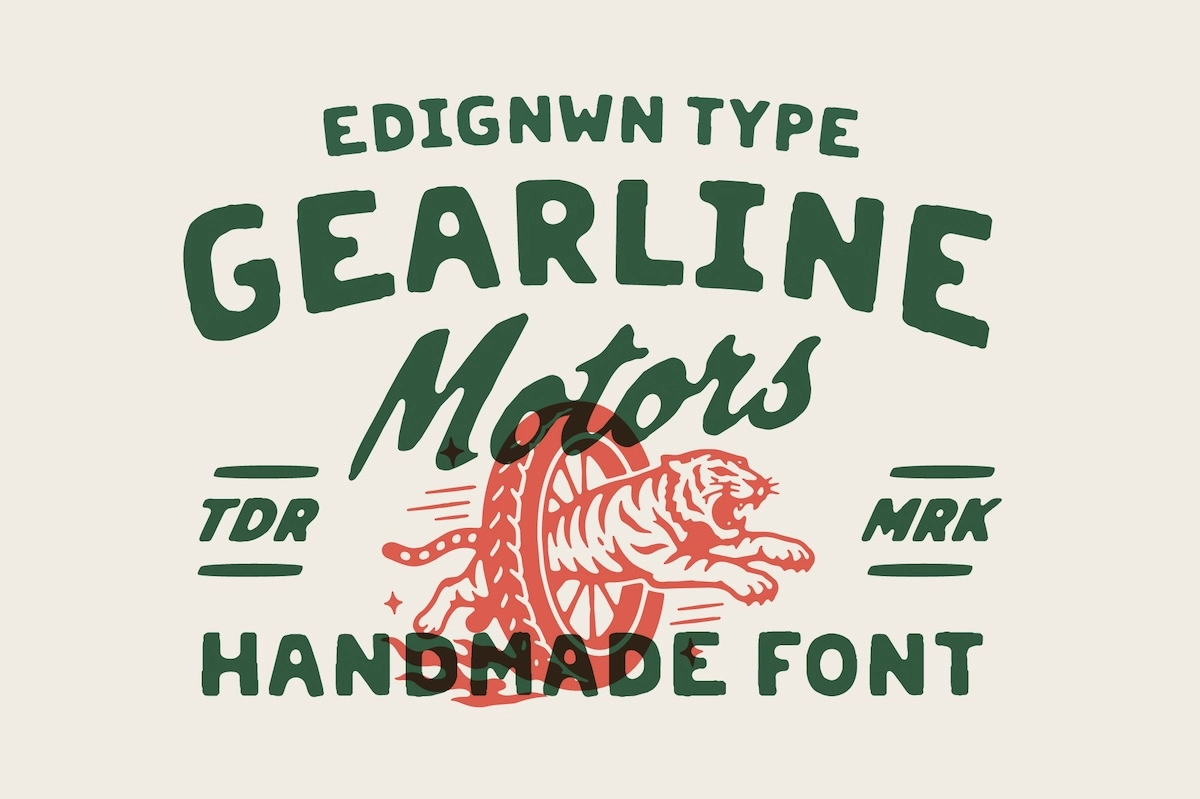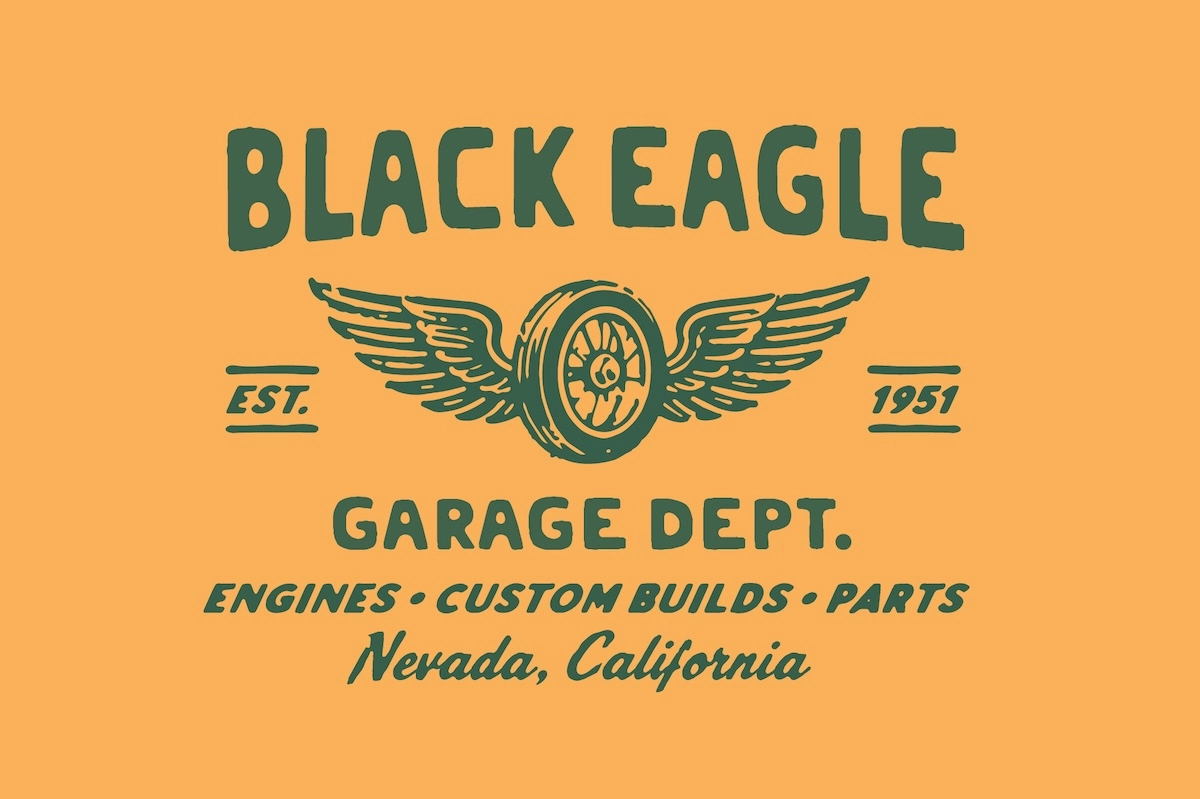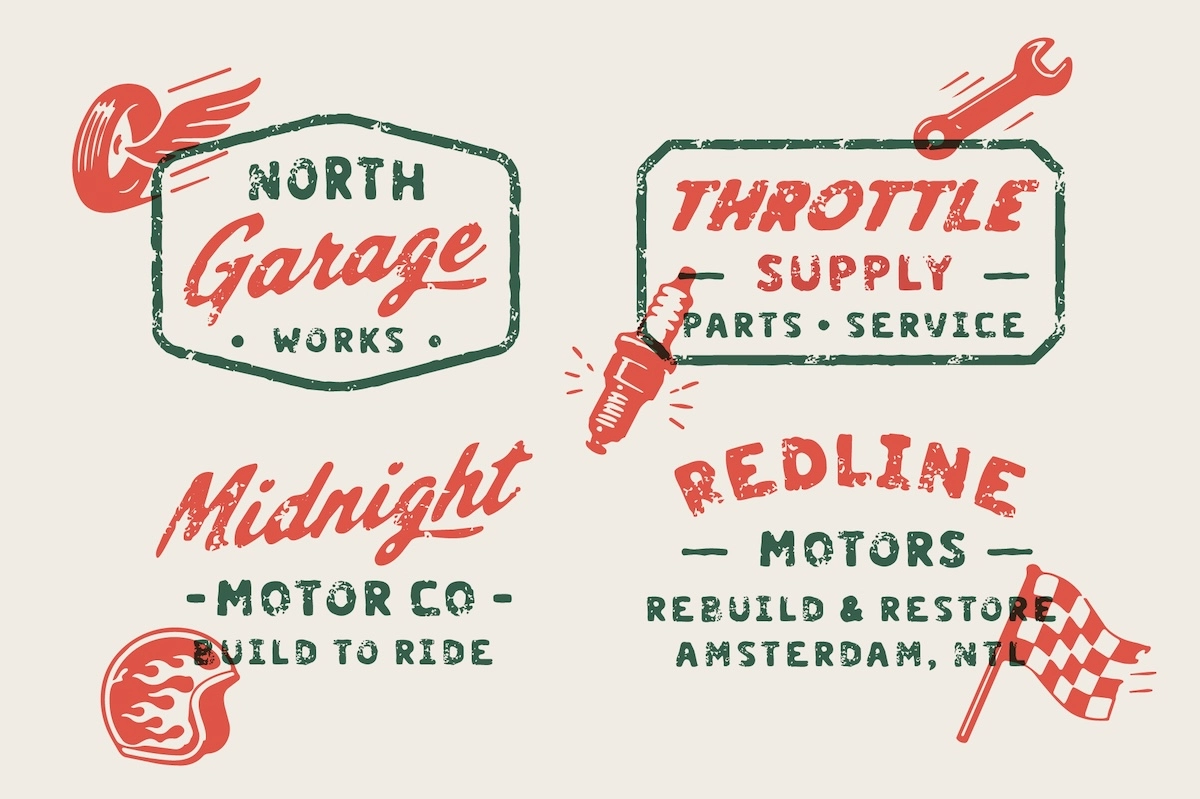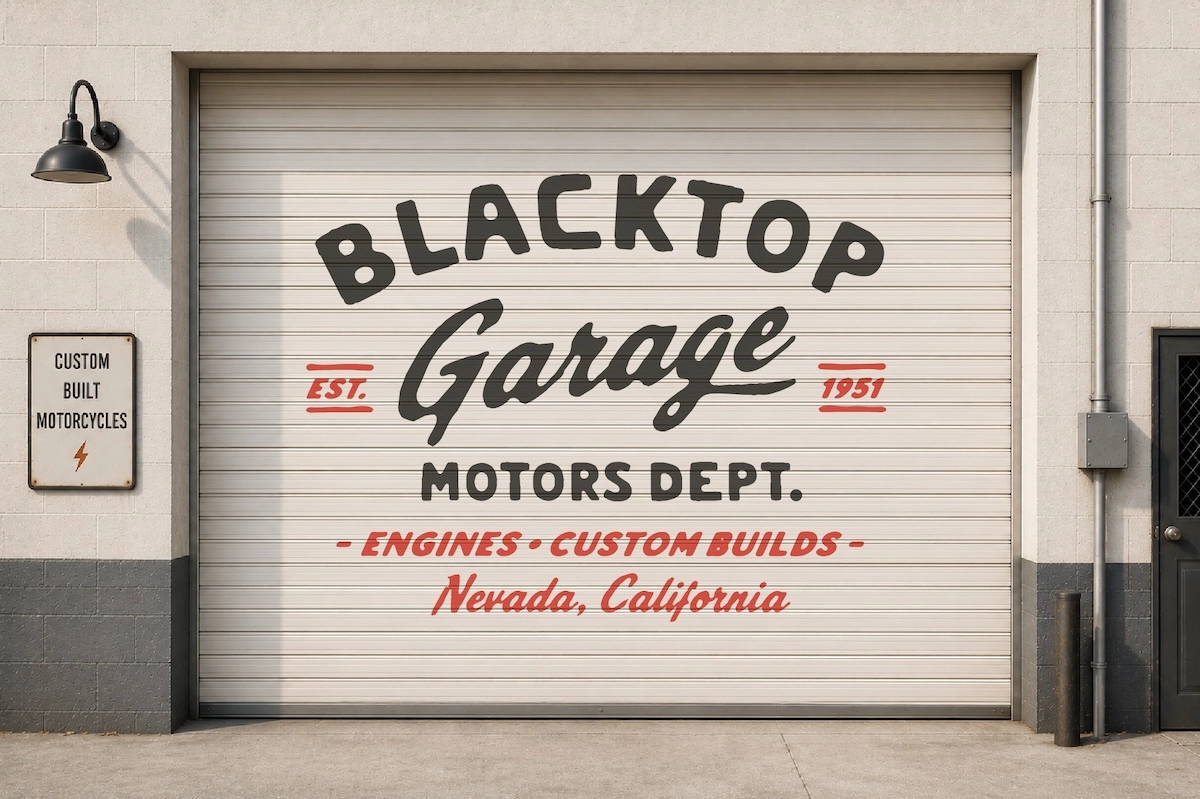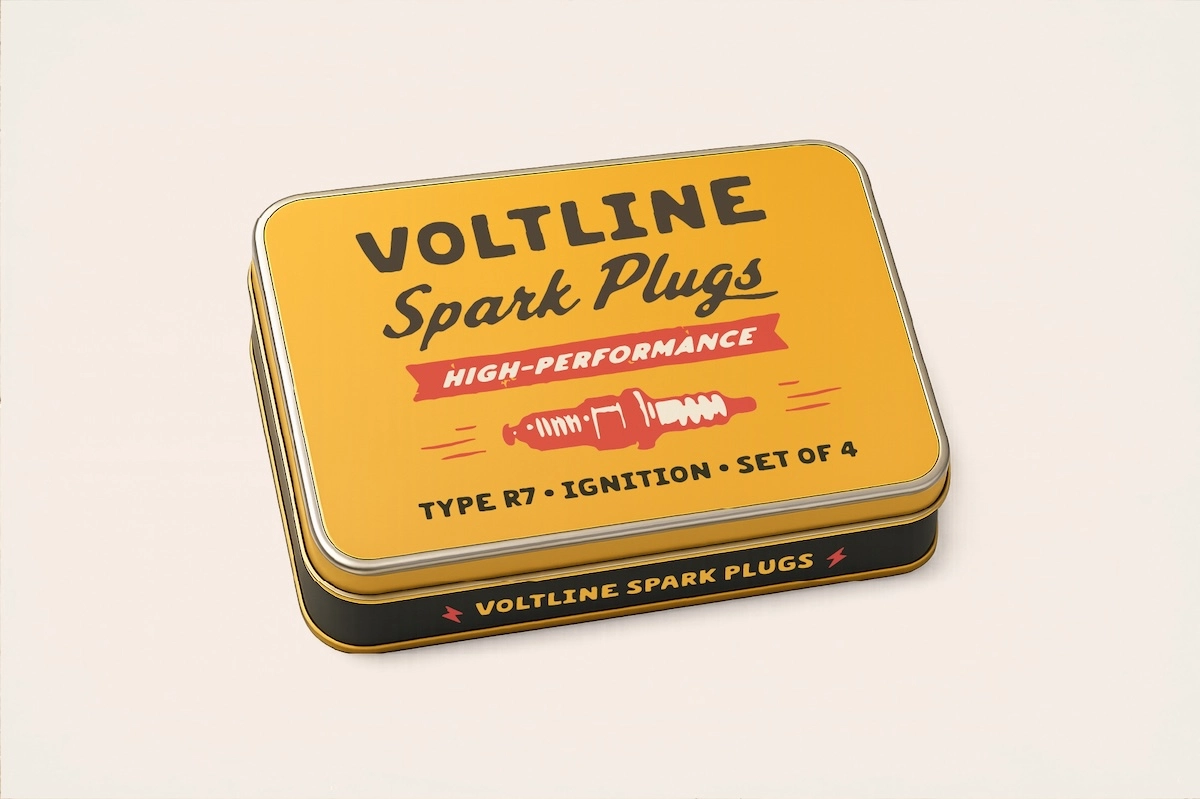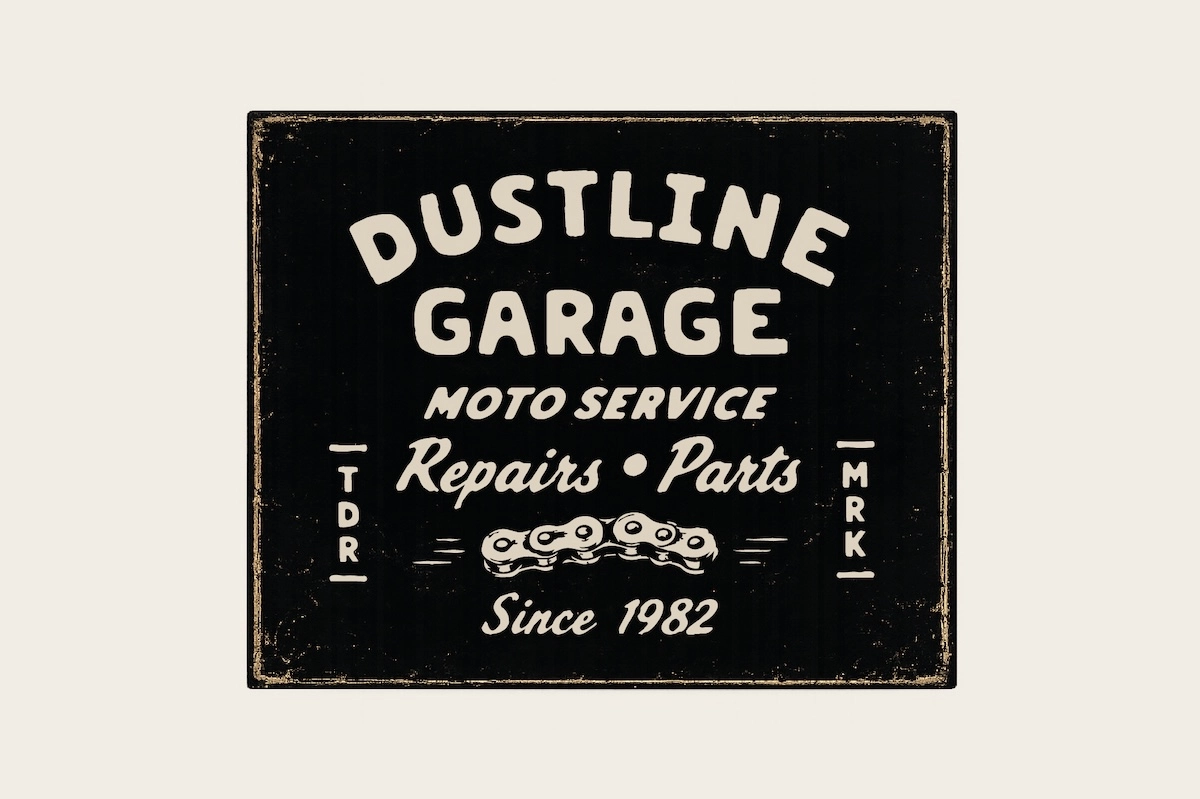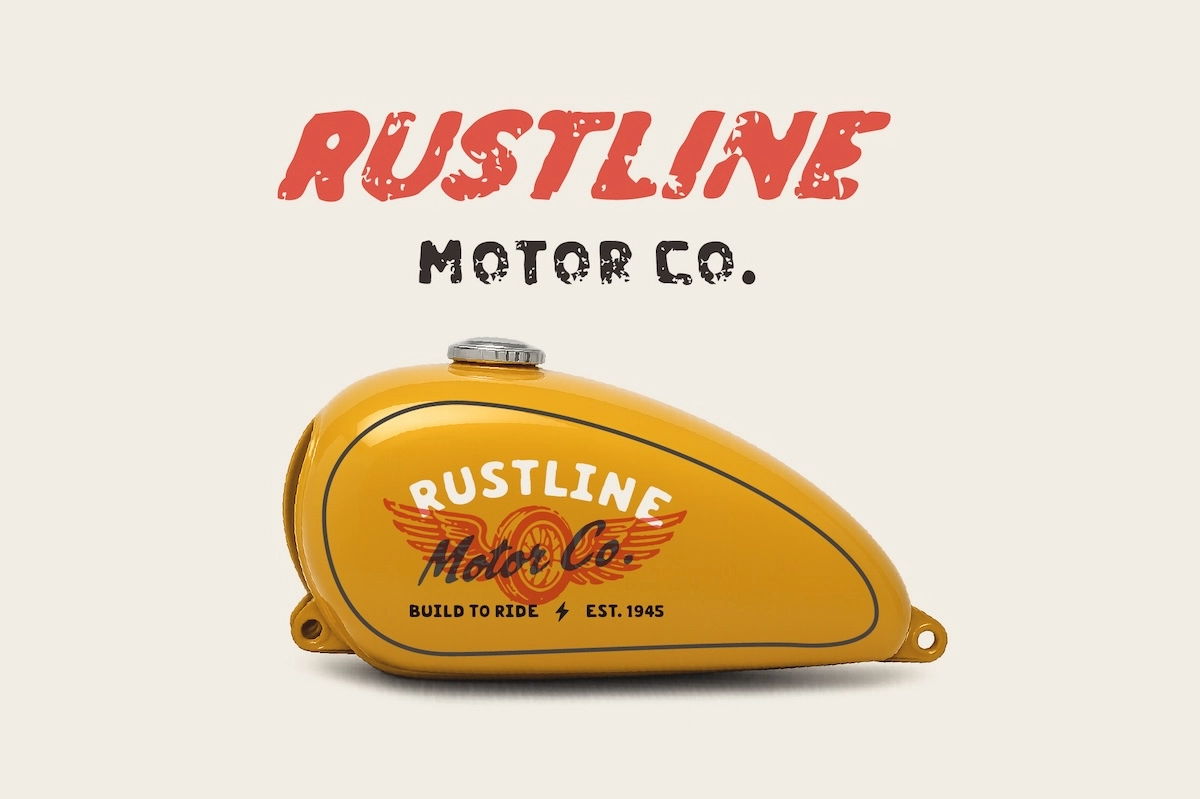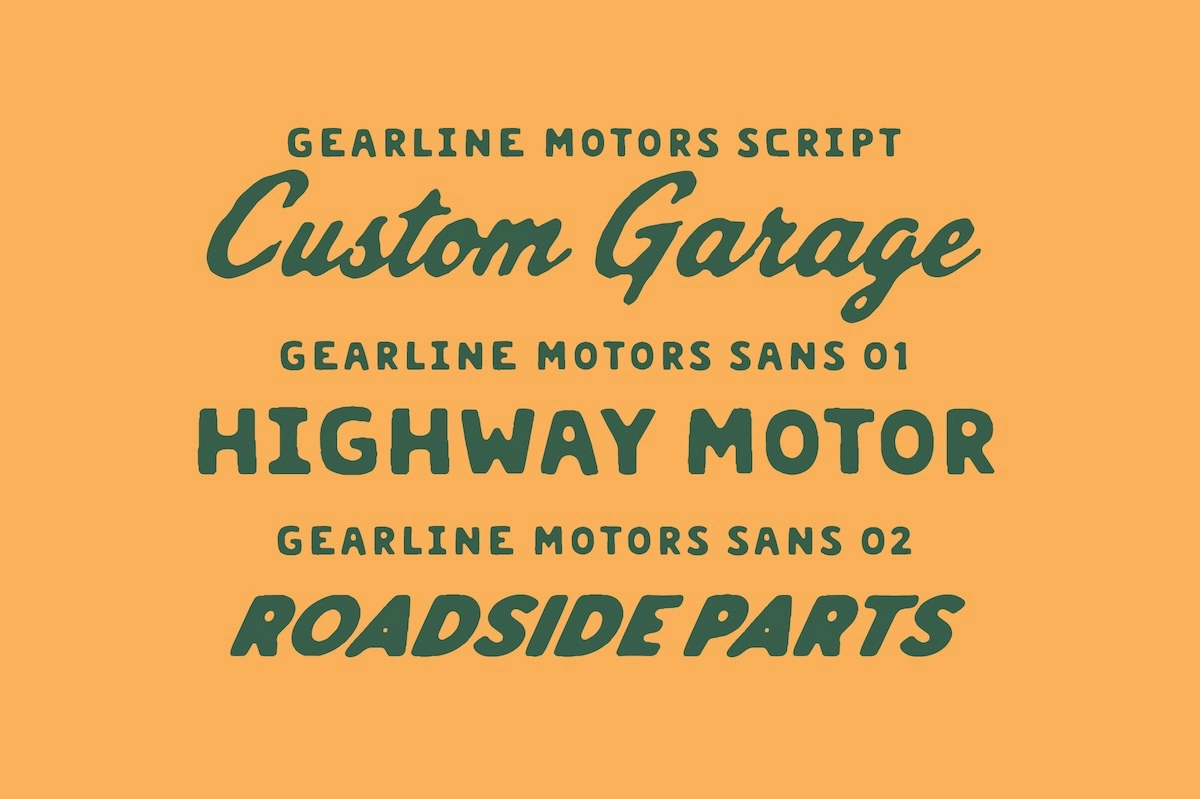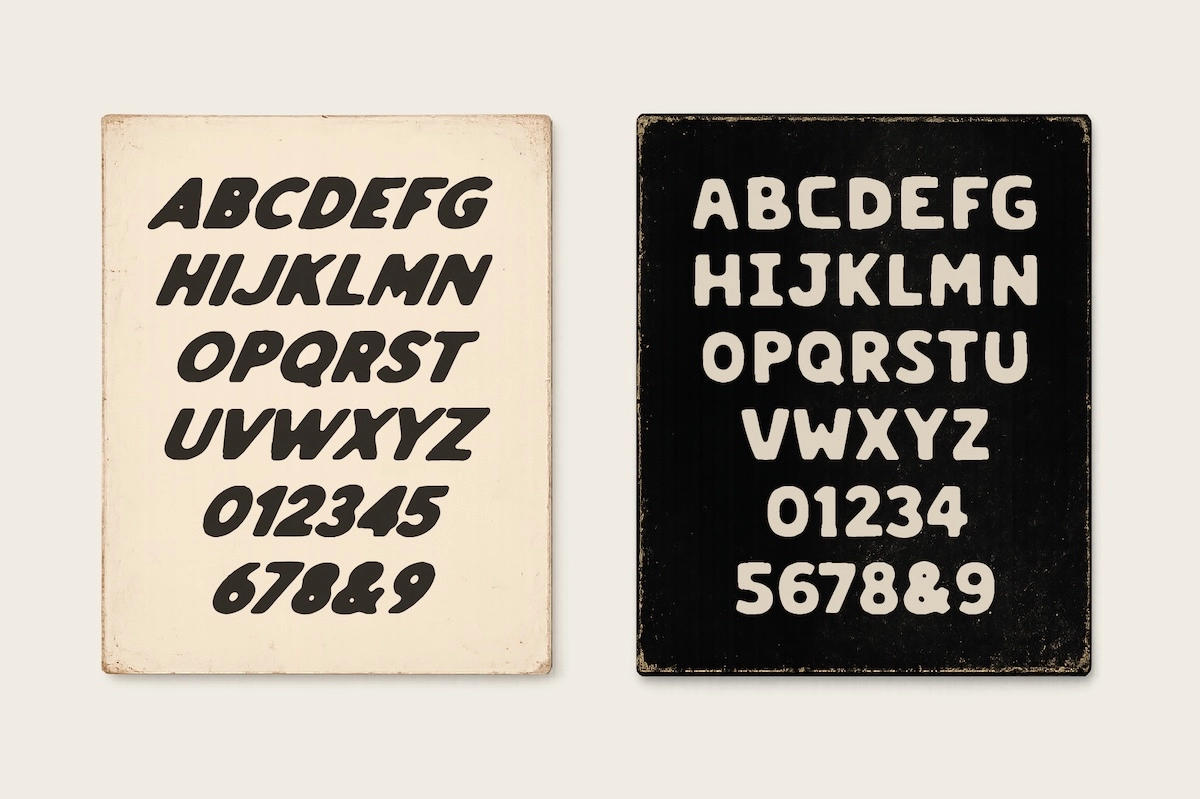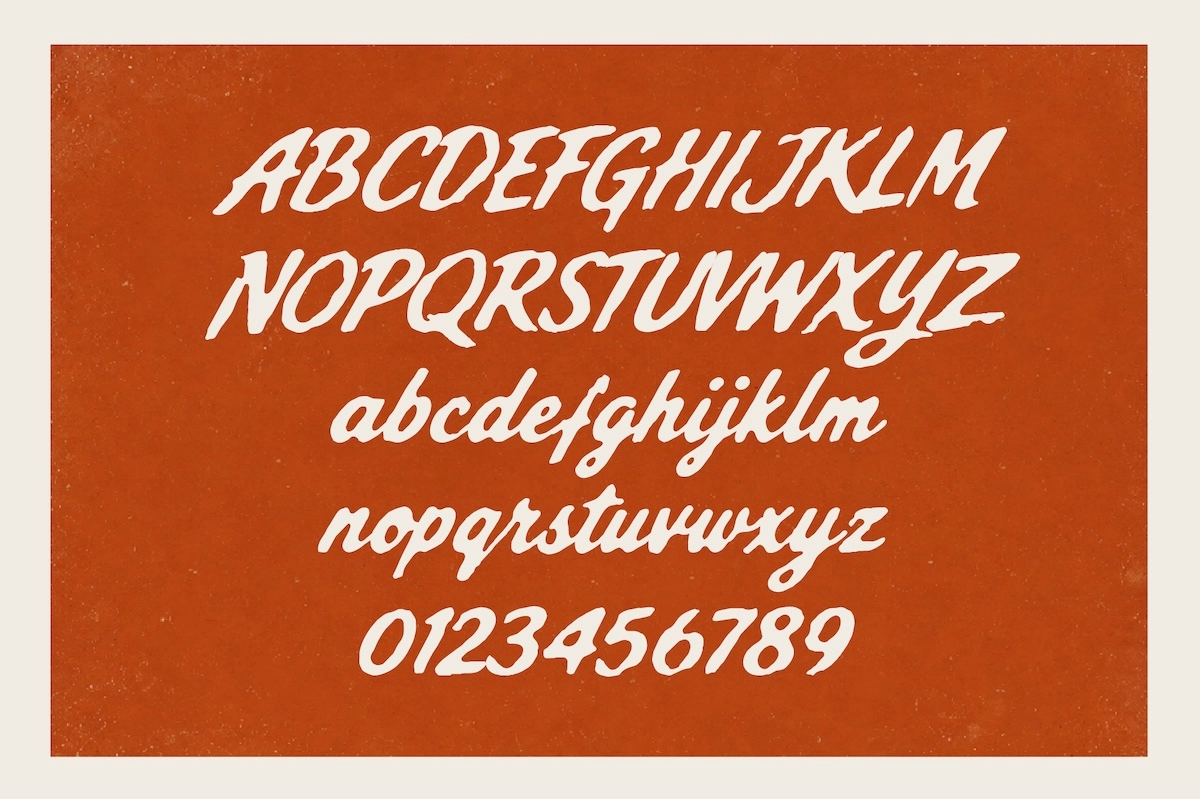
Gearline Motors - Vintage Garage Font Family
Gearline Motors builds a small type system around hand-painted garage signage — a looping script paired with two condensed sans companions, all sharing the same worn, brush-lettered energy. Every typeface ships in a clean Regular and a rough, ink-textured version, so the same badge logo can read crisp on a business card or beat-up on a patch or sticker.
Ligatures and stylistic alternates live in the Script style, reshaping select letter pairs and swapping in different capital forms for a less repetitive logotype. Ordinal and superscript figures carry across all three typefaces, alongside standard kerning. Use it for motorcycle and garage branding, workshop signage, apparel graphics, packaging, posters, and custom automotive identities.
• 3 complementary typefaces: Script, Sans 01, Sans 02;
• 2 styles per typeface — Regular & Textured (6 fonts total);
• uppercase & lowercase across the family;
• numerals, punctuation & symbols;
• ligatures & stylistic alternates in Gearline Motors Script;
• ordinals & superscript figures;
• kerning support;
• multilingual support